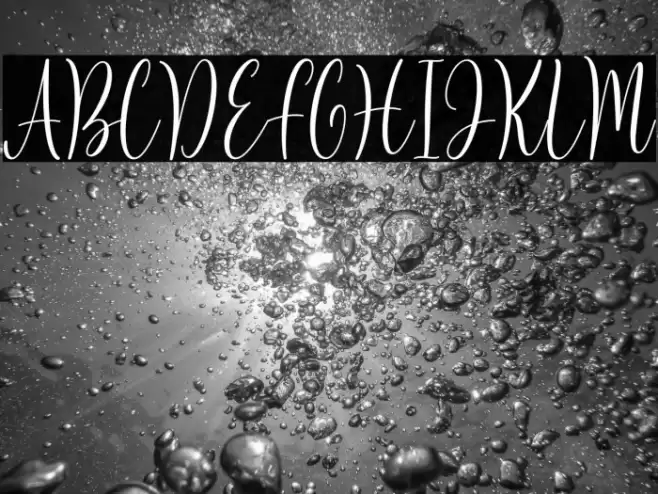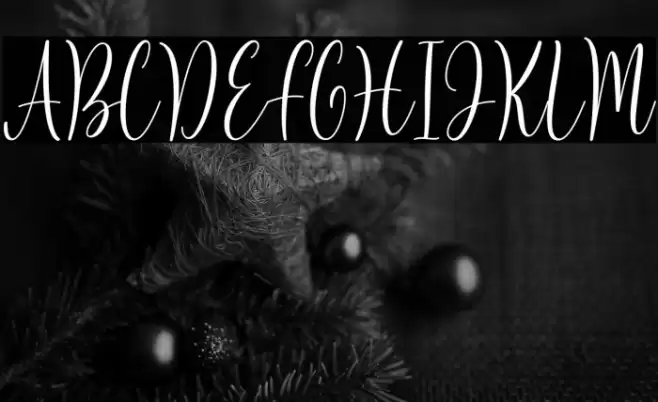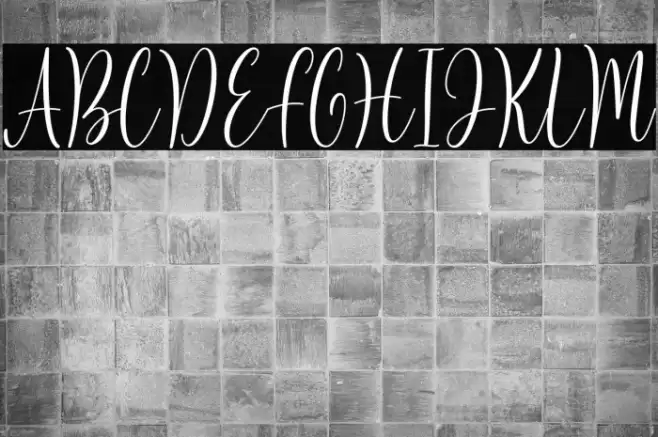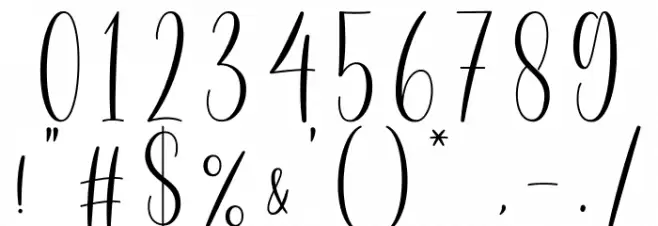
Rasida Font
Rasida Description
This elegant script font features a flowing, handwritten style with smooth, connected strokes that give it a graceful and sophisticated appearance. The uppercase letters are tall and slender, with a slight slant that adds a dynamic feel. The lowercase letters are more rounded and feature intricate loops and swashes, enhancing the font's decorative quality. The numerals are consistent with the overall style, maintaining the same fluidity and elegance. Special characters are thoughtfully designed to complement the alphabet, ensuring a cohesive look across all elements. This font exudes a sense of charm and refinement, making it ideal for projects that require a personal touch.
A graceful script font with flowing, connected strokes and elegant loops from Uncategorized fonts.
- Font: Rasida
- Proposed Projects: Ideal for wedding invitations, greeting cards, branding, and elegant packaging designs.
- Overall Style: Elegant, Decorative
- Use Case: Logos, Invitations, Decorative text